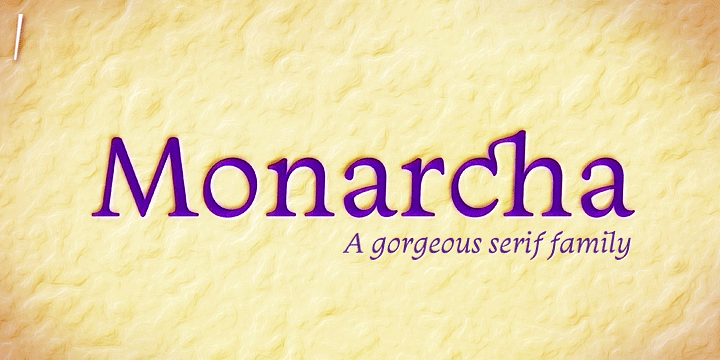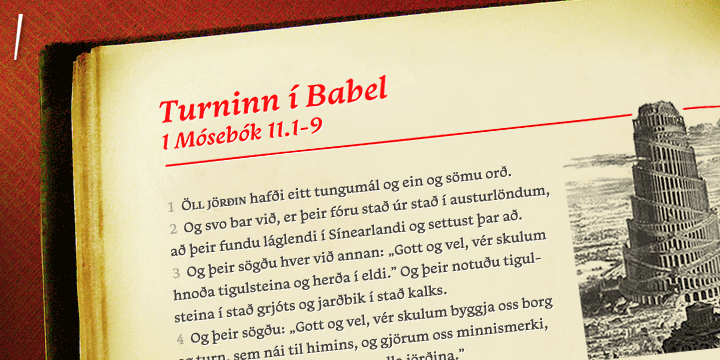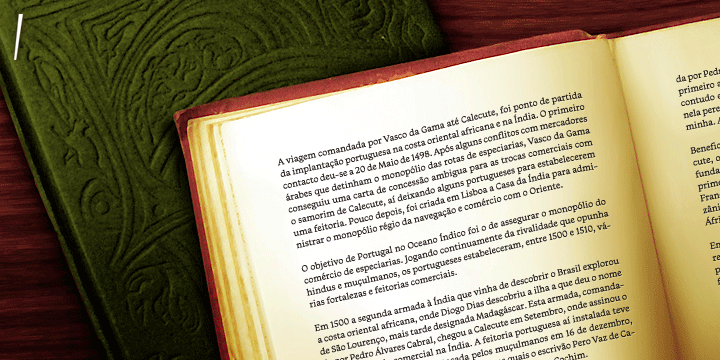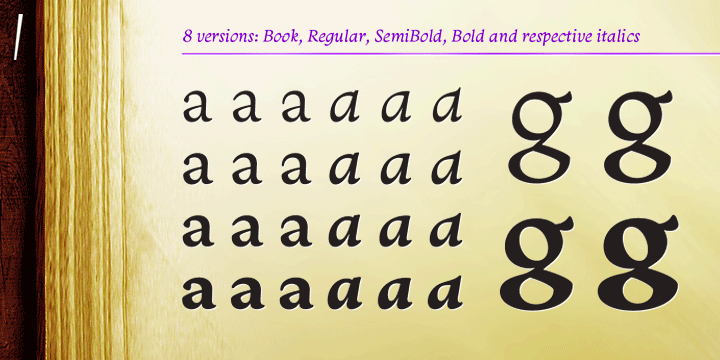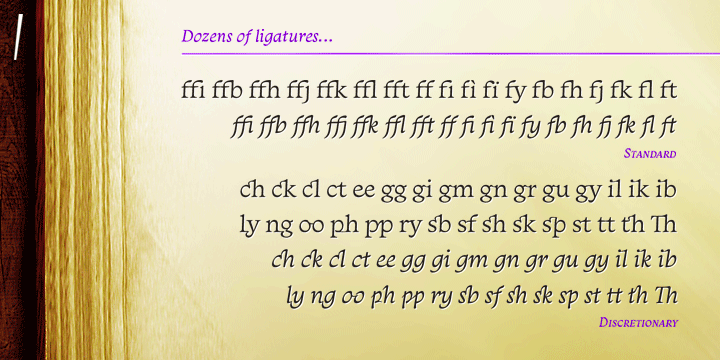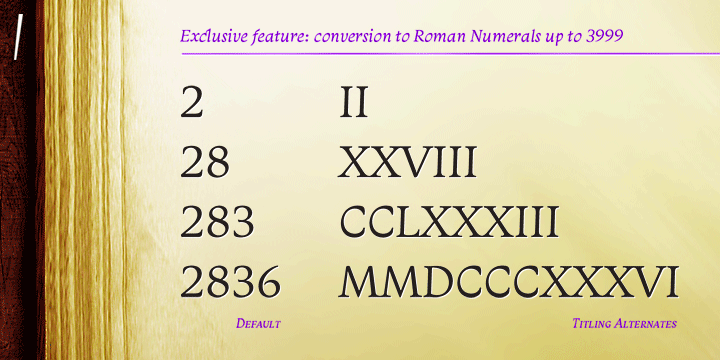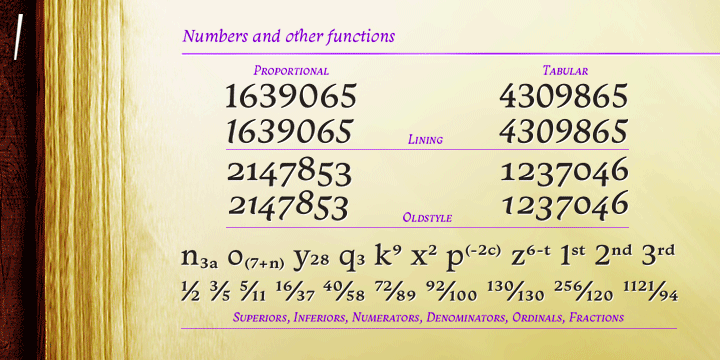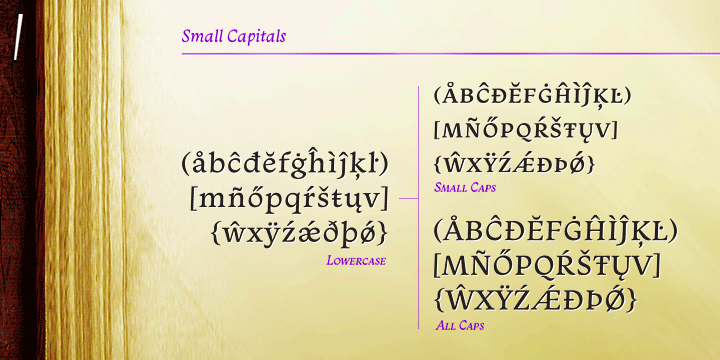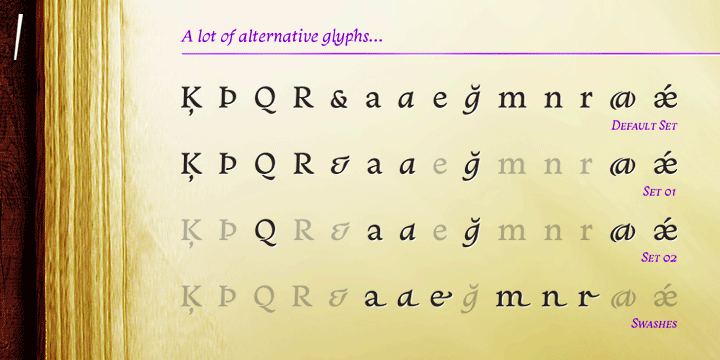
Monarcha
Monarcha is a serifed type family, with a strong influence of the baroque style, for extended texts. Its roman versions are slightly skewed, in the sense of reading, and its italics have unusual calligraphic features. Moreover, the contrast between thick and thin strokes is relatively smaller than in conventional serif fonts. These characteristics, coupled with its rounded shapes, give Monarcha a delicious fluidity and texture.
Monarcha innovates and brings an exclusive OpenType feature to convert Arabic to Roman numerals up to 3999. It also has several other professional features - small caps, fractions, old style-, lining-, tabular numbers, scientific superior/inferior figures, stylistic sets and more than 40 different ligatures (standard + discretionary).
The family consists of 8 styles, 4 weights - Book, Regular, SemiBold and Bold - plus their respective italic versions. The fonts are available in OpenType PS format and have extended character set to support CE, Baltic, Turkish as well as Western European languages.